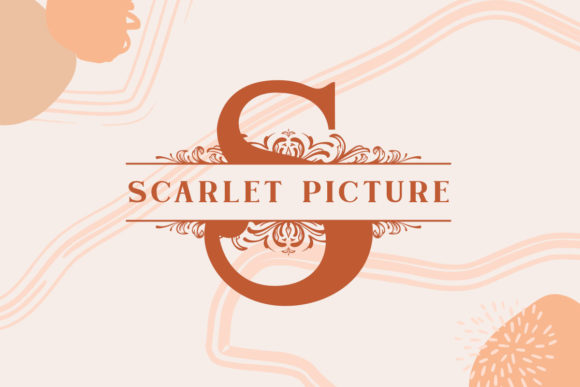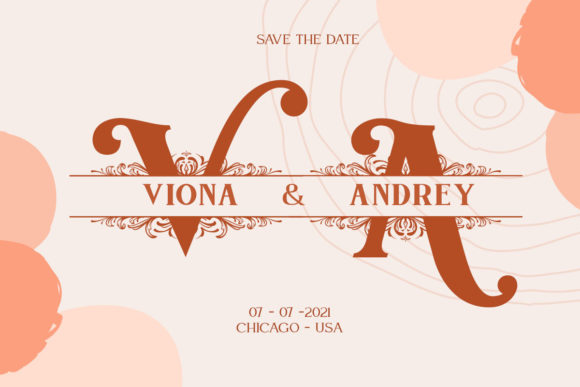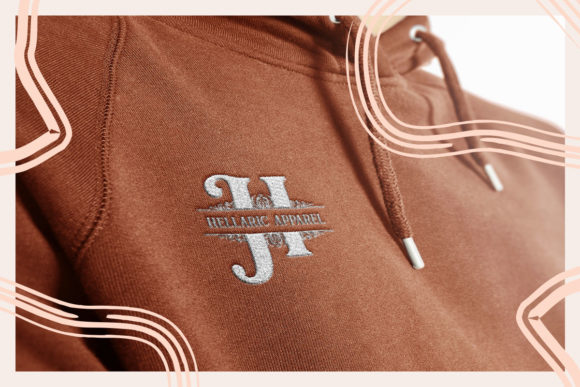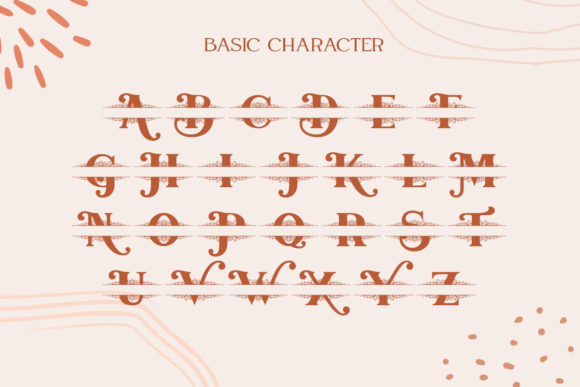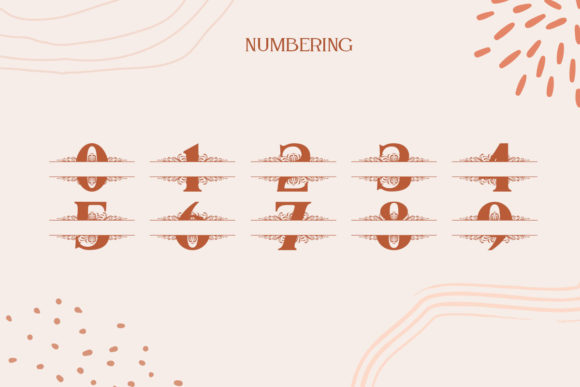
Introduction to Mellica Monogram Font
Have you ever stared at a blank page, waiting for that spark of creativity to ignite your next project? For many designers, this is a familiar sensation. The search for the perfect font can be a daunting task, but what if I told you that there’s a game-changing design resource waiting to be discovered?
Enter the enchanting Mellica Monogram Font, an elegant and unique display font that’s sure to elevate your creative ideas to new heights. With its sophisticated design and high-quality aesthetic, this font is an invaluable asset for any designer looking to add a touch of sophistication to their work.
Whether you’re working on a free download project or a commercial design, the Mellica Monogram Font is a versatile and stylish choice that’s sure to impress. With its transparent background and elegant flair, this font is perfect for designers who crave a high-end look without the hefty price tag.
Key Features of Mellica Monogram Font
- Unique Monogram Design: The Mellica Monogram Font offers a distinctive and elegant monogram design, perfect for adding a touch of sophistication to your creative project.
- High-Quality Design Resource: This font is a high-quality design resource that can be used for various purposes, including wedding invitations, branding, and more.
- Transparent Background: The font has a transparent background, allowing you to easily place it over any image or design without worrying about background issues.
- Large Character Set: The font includes a large character set, including uppercase and lowercase letters, numbers, and punctuation marks, making it suitable for a wide range of applications.
- Resolution: The font is designed to be high-resolution, ensuring that it looks crisp and clear even at large sizes.
Honest Review: Mellica Monogram Font
I recently had the chance to work with the Mellica Monogram Font, and I must say it’s been a game-changer for my design projects. This font is a fantastic addition to any design resource, offering a unique and elegant touch that can elevate any creative project.
- What works well: ✨ The Mellica Monogram Font is incredibly versatile and can be used for a wide range of applications, from weddings and graduations to corporate events and branding. The high quality of the font is evident in its crisp lines and smooth curves.
However, there are a few limitations to consider. ⚠️ The font may not be suitable for very large or complex designs, as it can become difficult to read at smaller sizes. Additionally, the font may not be compatible with all design software, so be sure to check compatibility before using it in a project.
Overall, I’m thoroughly impressed with the Mellica Monogram Font. Its unique design and high quality make it a valuable addition to any design resource. Whether you’re working on a creative project or simply need a stylish font for a client, the Mellica Monogram Font is definitely worth considering.
The Mellica Monogram Font is a high-quality, free download design resource ideal for creative projects. Its unique and elegant design makes it perfect for various applications.
Tips for Getting the Most Out of Mellica Monogram Font
For best results, use the Mellica Monogram Font on a transparent background to achieve a clean and elegant look. You can also experiment with different font sizes and colors to create unique designs.
The Mellica Monogram Font is commonly used for wedding invitations, branding, and other creative projects where a unique and elegant design is required.